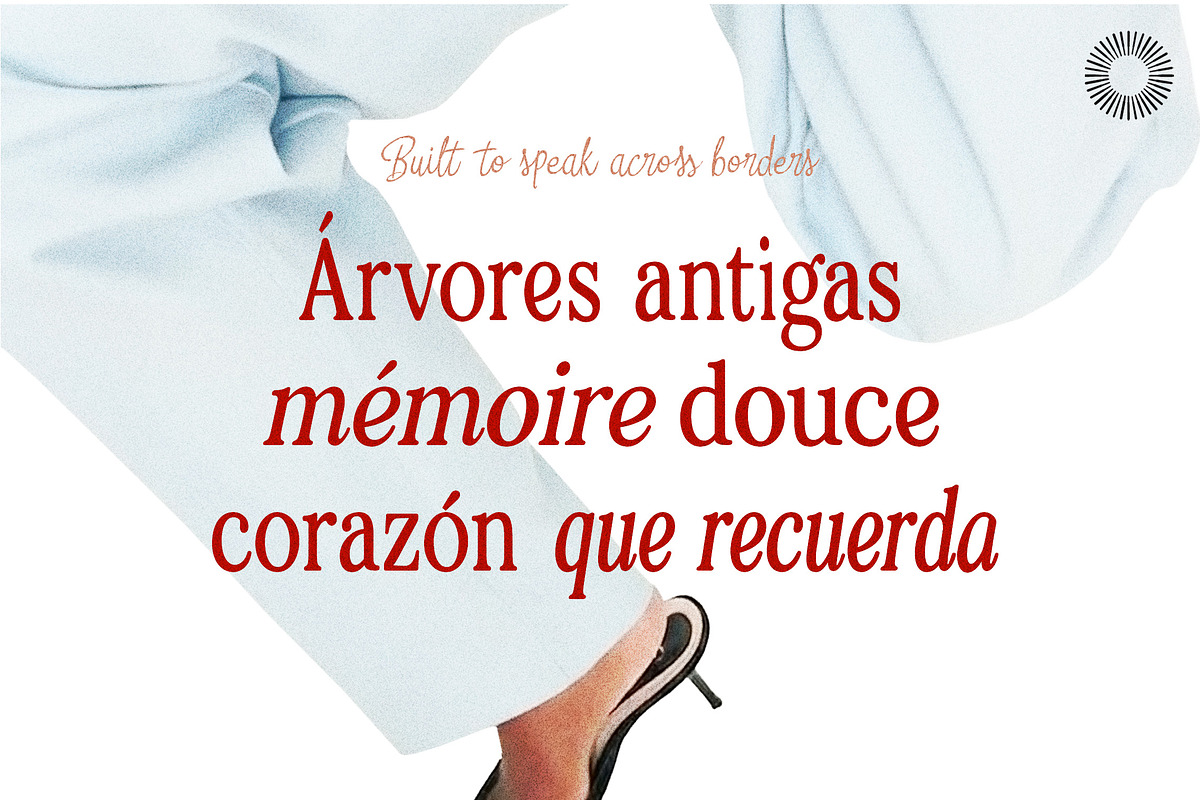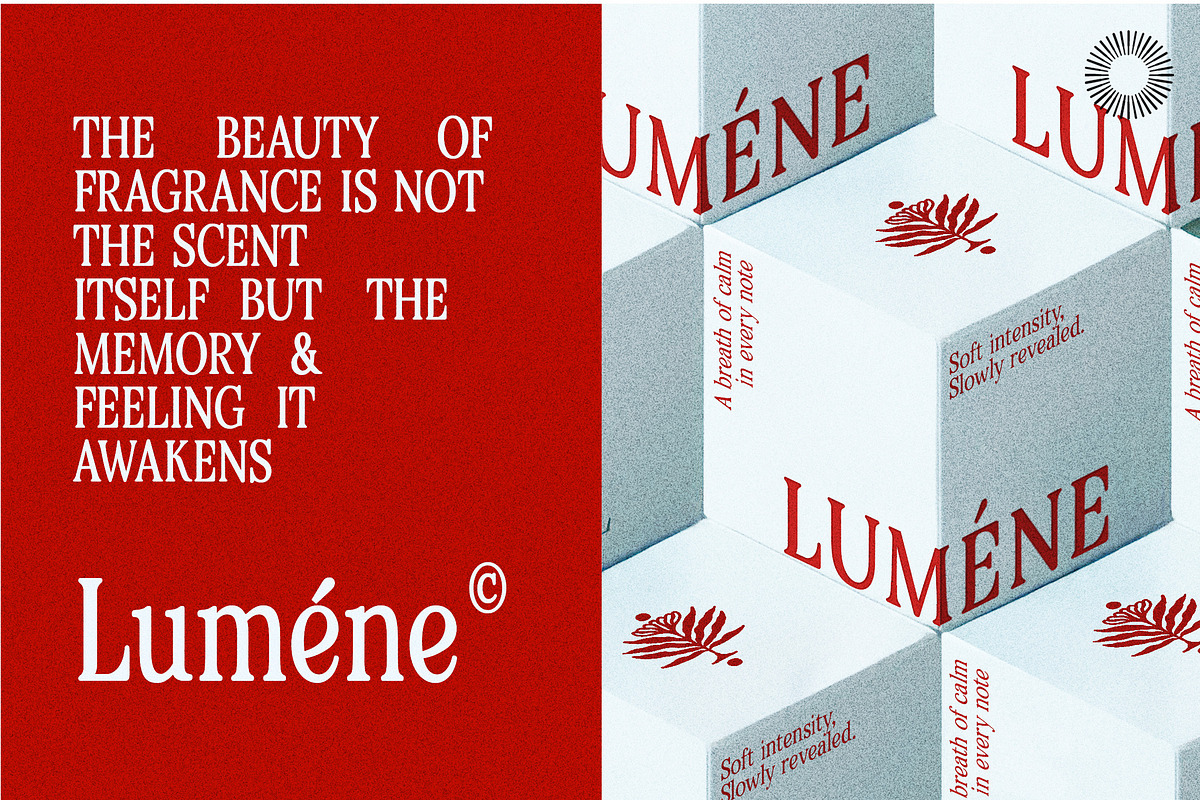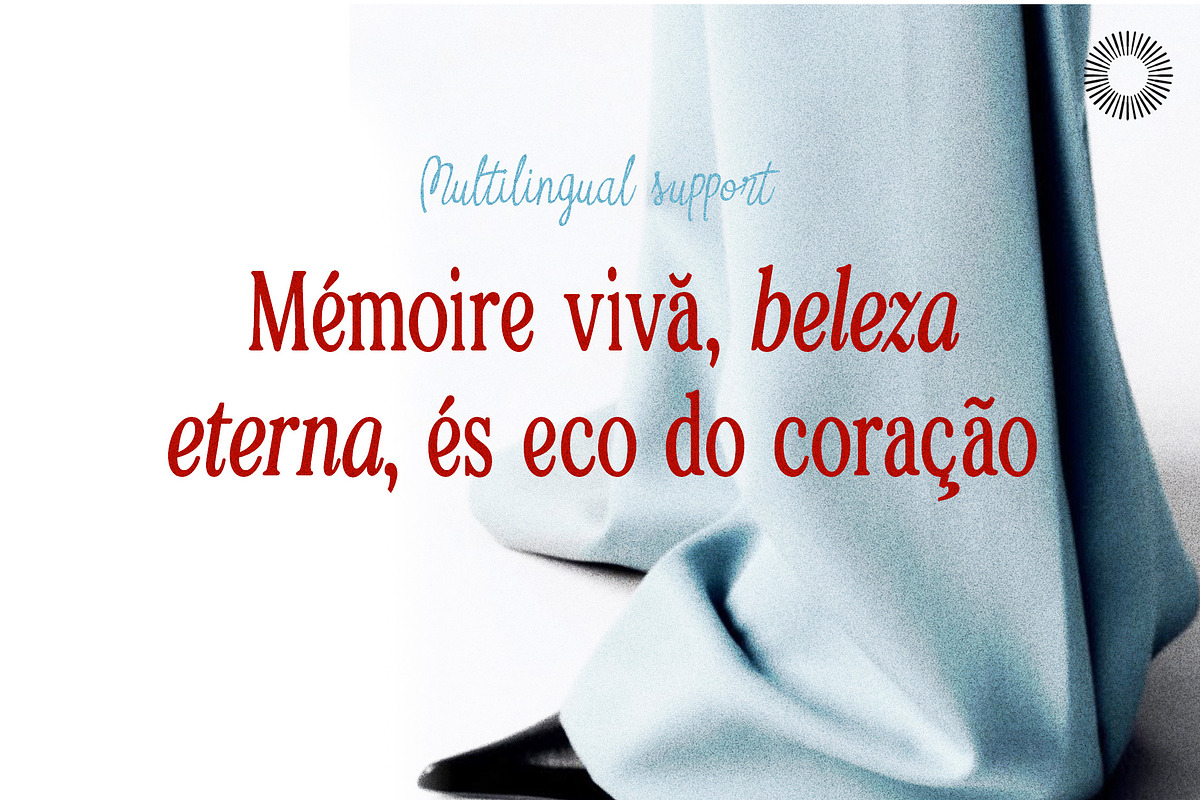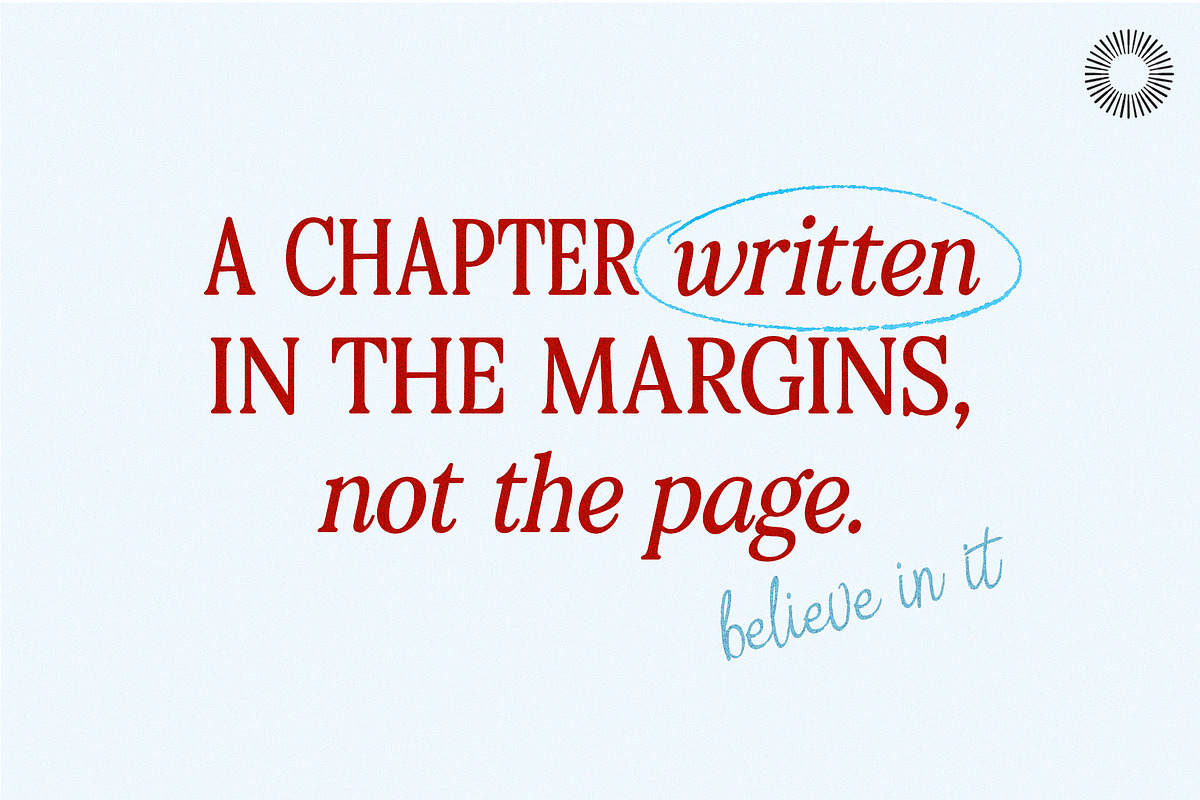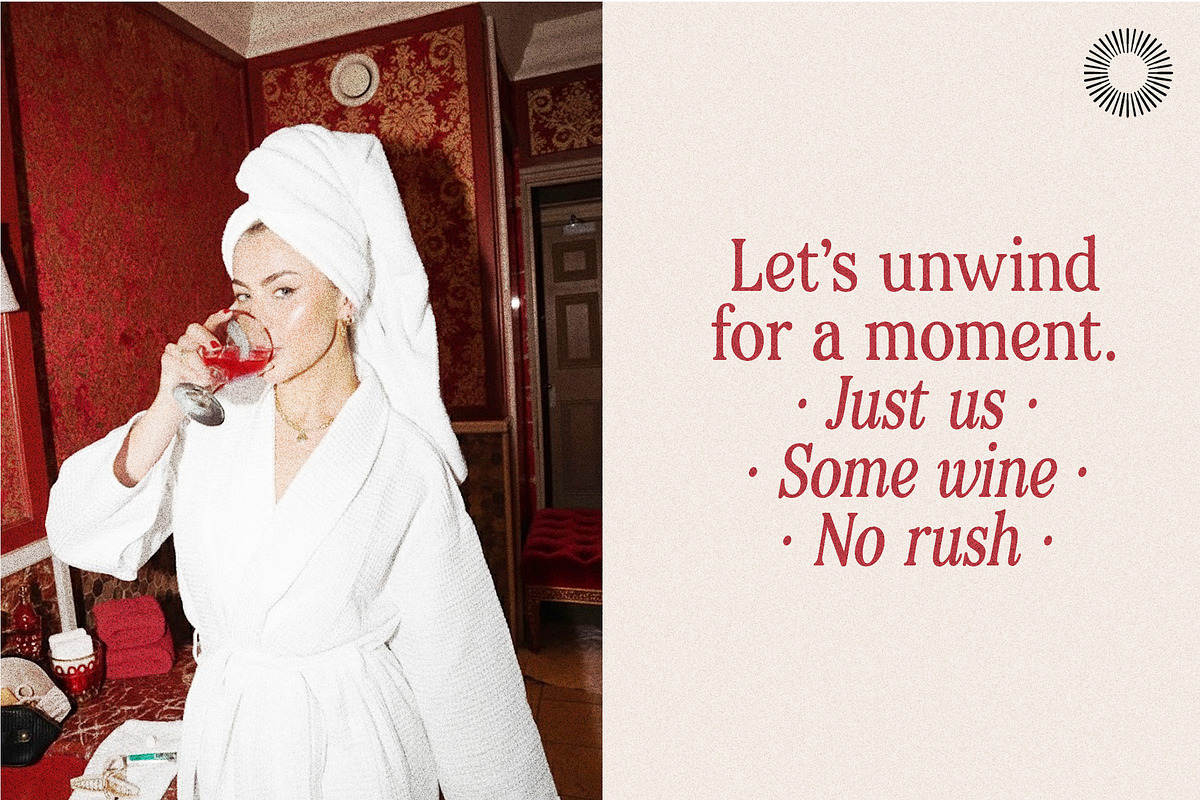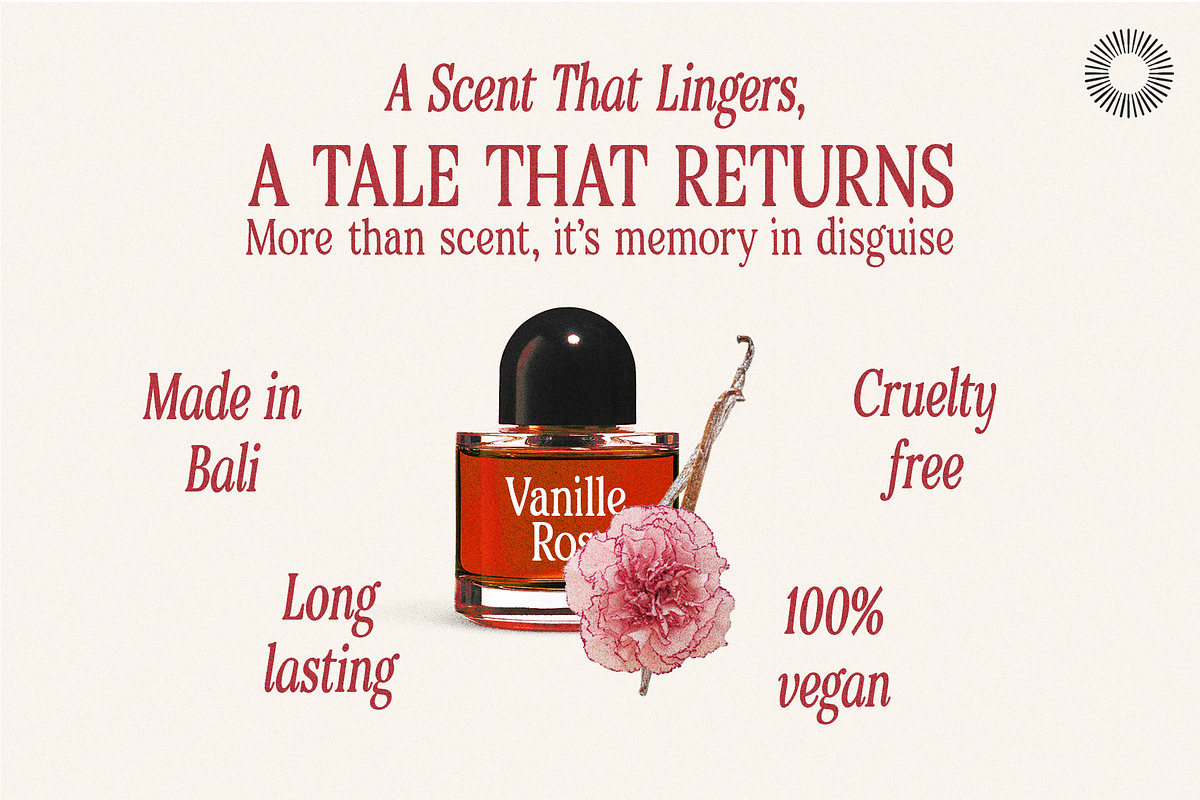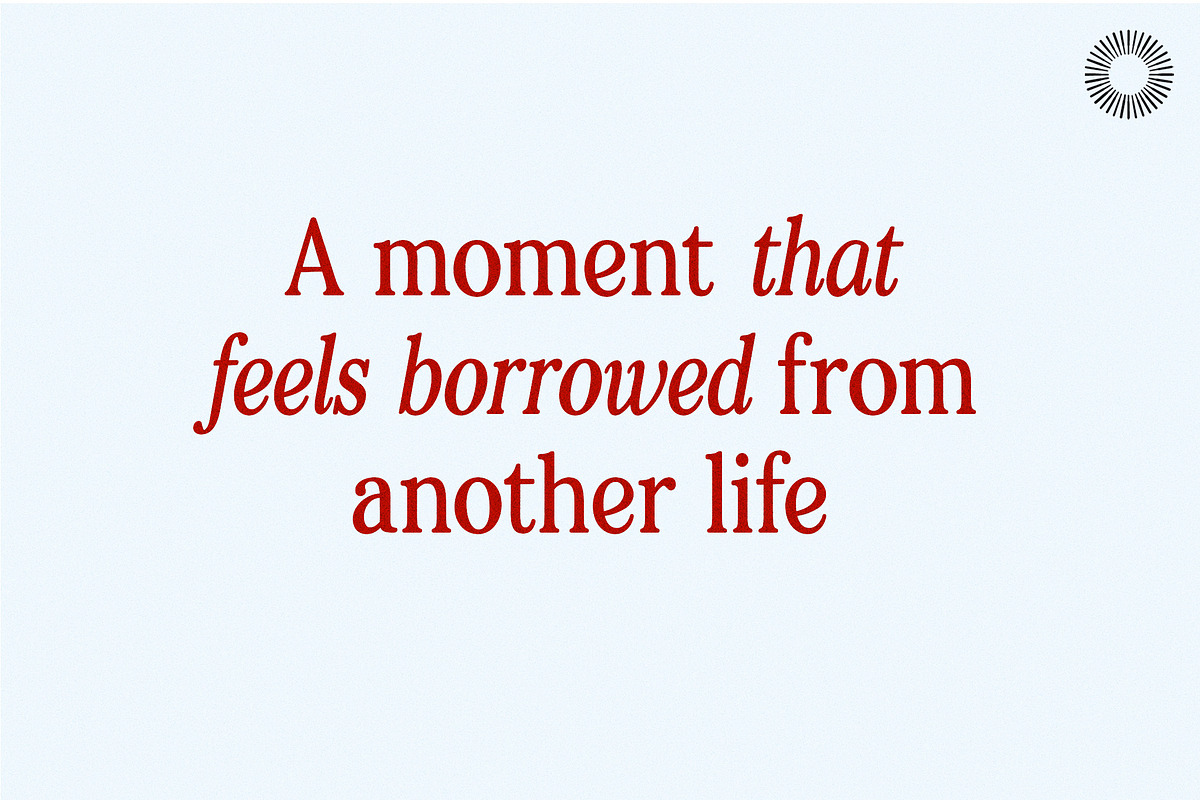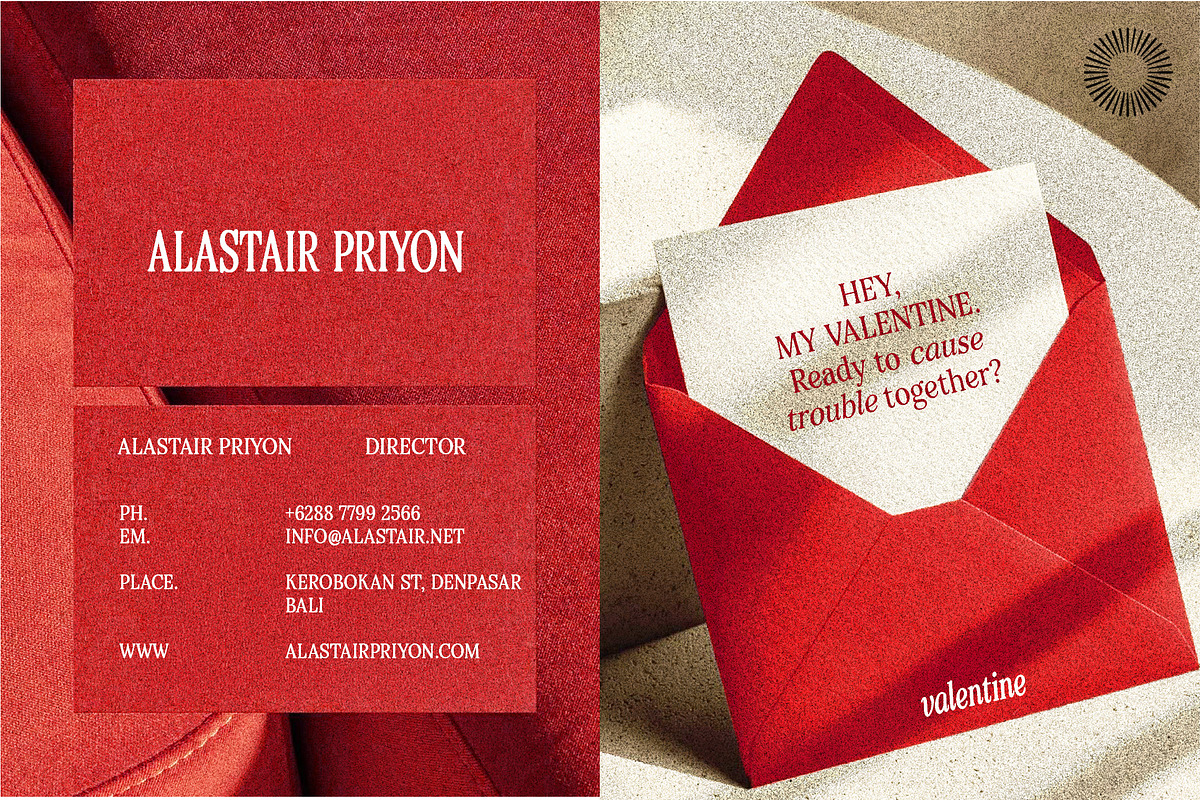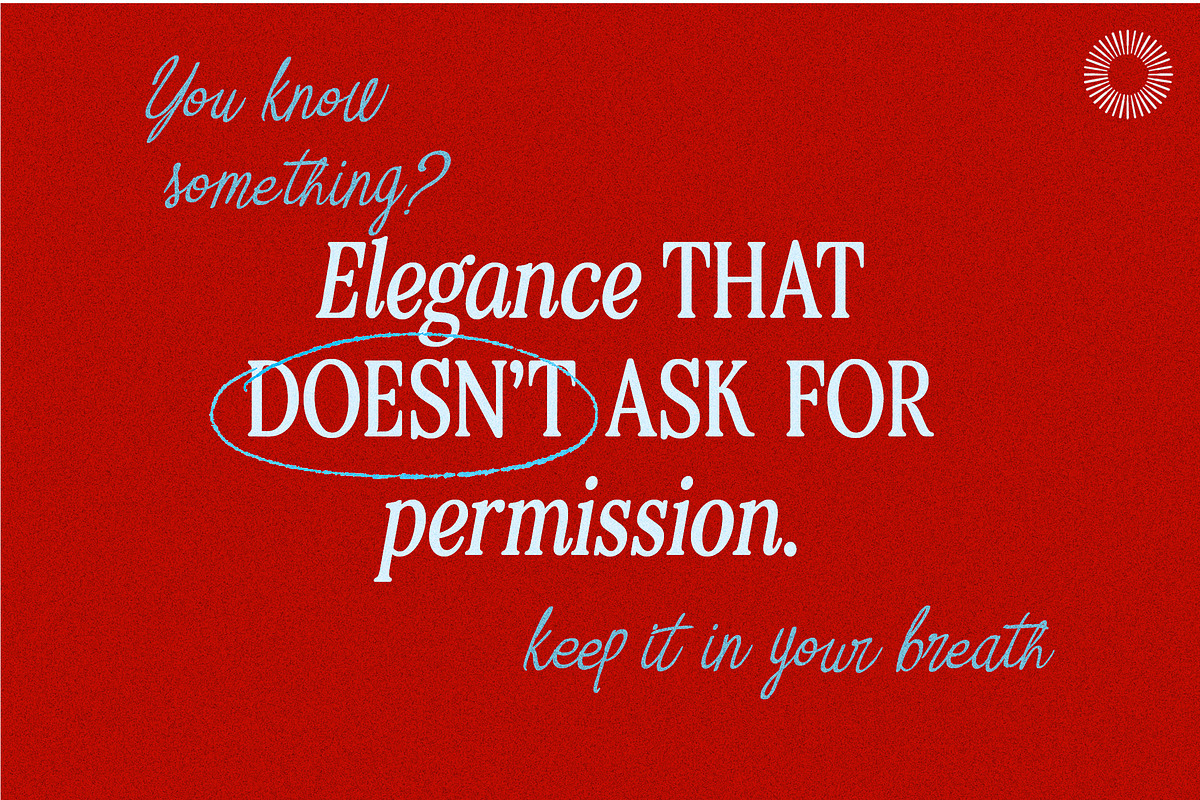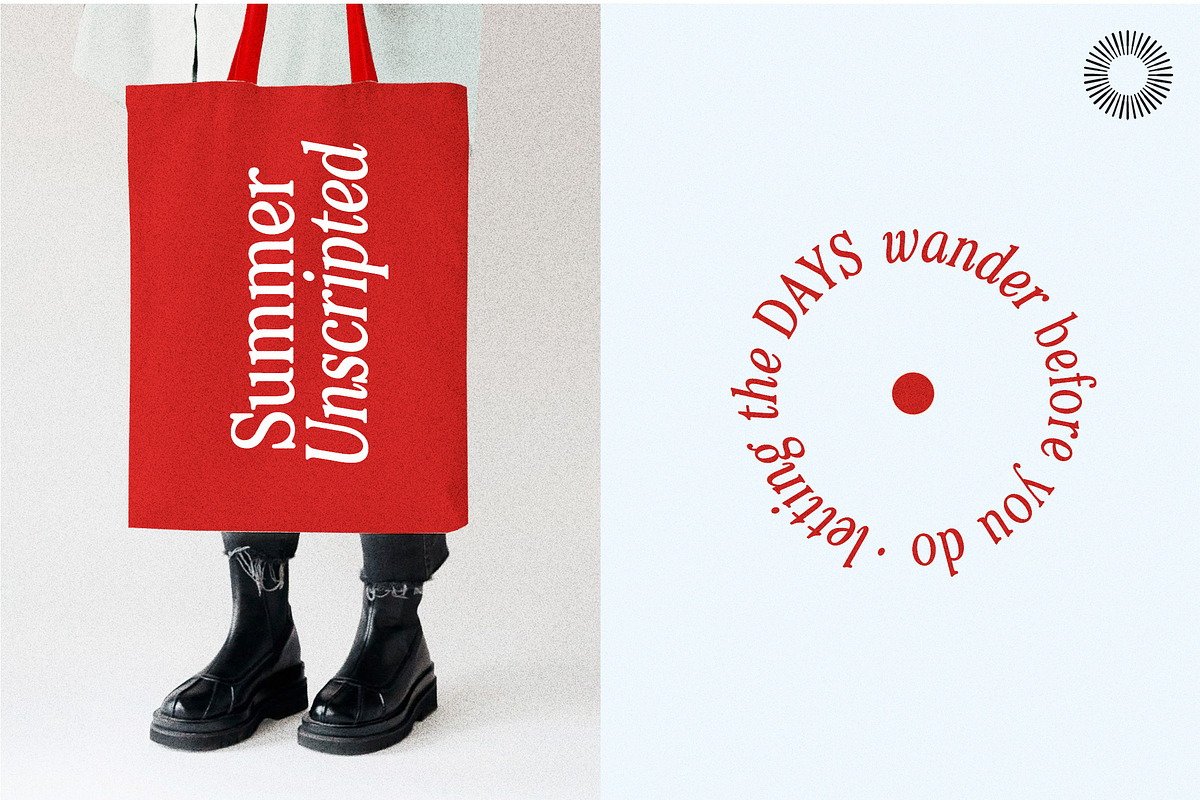
Basic Roots | Editorial Nostalgia
Roots of Memory is a serif that leans into quiet nostalgia, clean, human, and grounded. It carries the feeling of handwritten heritage translated into a modern, dependable typeface. The shapes are soft but structured, giving it a sense of warmth without losing clarity. It’s the kind of serif that feels like a memory resurfacing: familiar, steady, and intentionally imperfect in all the right places. The rhythm of the letters makes it versatile—elegant enough for branding, yet gentle enough for personal storytelling. It avoids the stiffness of traditional serifs and instead adopts a more lived-in character. This subtle emotional texture gives it the ability to stand out without asking for attention, making it ideal for projects that want sincerity over spectacle. Best Use Cases - Branding & Visual Identity (boutiques, lifestyle brands, handcrafted goods) - Editorial Design (magazines, articles, long-form features) - Packaging (fragrance, skincare, artisanal food) - Quotes & Social Media Graphics - Stationery & Invitations - Book Covers & Chapter Headings - Luxury Product Labels